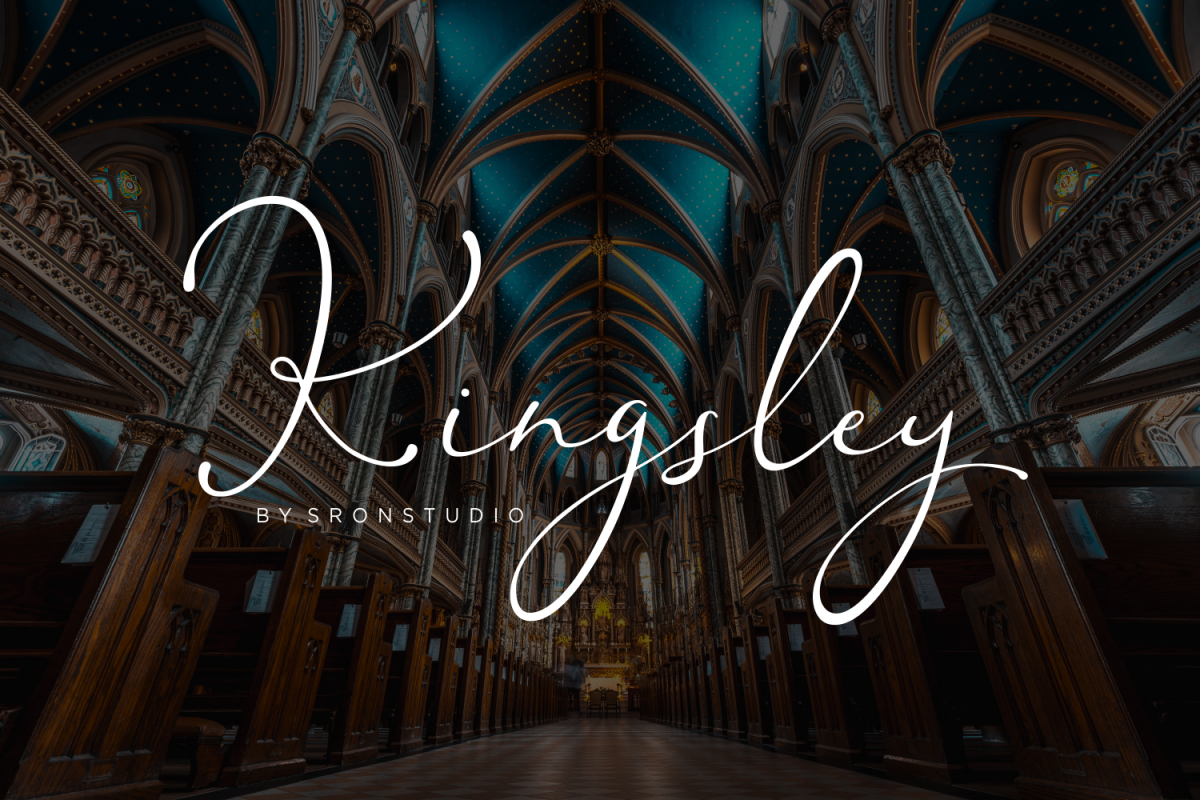
Kingsley - Modern Script Font
Introducing Kingsley - a new modern & fresh script with a stylish handwritten and script style make this font looks natural, classy, natural and perfect for any awesome projects that need handwriting taste.
Kingsley is perfect for many different project such as logos & branding, invitation, stationery, wedding designs, social media posts, advertisements, product packaging, product designs, label, photography, watermark, special events or anything.What's Included :
• More than 300 of glyphs
• Ligature & alternates
• include multilingual support